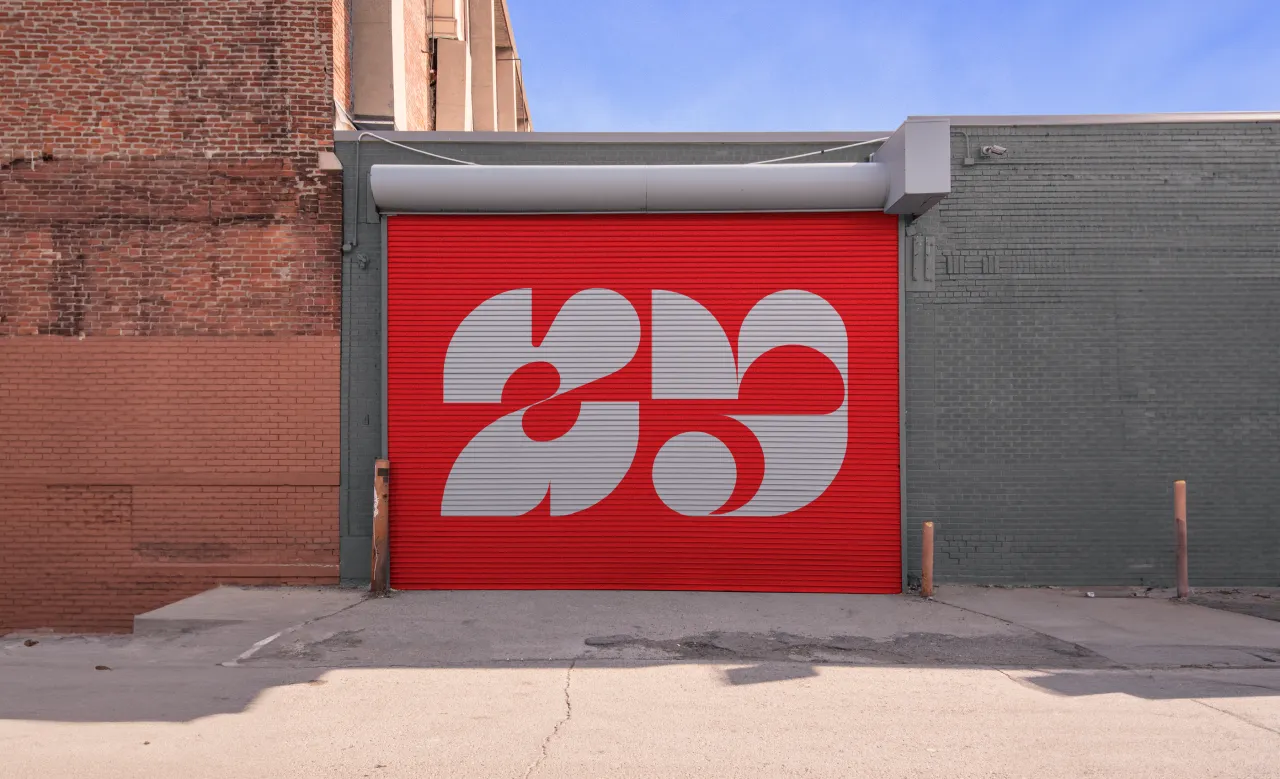
Modwood Display by Adam G
Ever feel like the design world is becoming more generic? That gut feeling is hard to quantify in any meaningful sense, but we're hearing it from many creatives right now. And it's certainly the case that the AI-fuelled direction we're heading in is pulling many things in the same visual direction.
Yet, every problem is also an opportunity. And if other people's designs are starting to look similar, why not double down on making yours stand out? One of the best tools for that is typography, so we're always looking out for exciting new fonts to share with you.
Thankfully, the art of typography continues to evolve, with designers and foundries consistently pushing the boundaries of letterform creation. And the proof of the pudding can be found among the best of this month's new typeface releases, which showcase the incredible creativity and craftsmanship within this small but highly passionate community.
From quirky, licence plate-inspired constructions to organic calligraphic scripts that capture the essence of Brazilian culture, these fonts offer a diverse array of expressive possibilities. Whether you're seeking to inject personality into headlines or hunting for highly legible workhorses for body copy, this collection represents the cutting edge of current type design trends.
In other words, the industry's best font designers have once again demonstrated their ability to transform the fundamental building blocks of communication into objects of purposeful beauty. So why not take advantage?
1. Piet by Typemates
The idea of a font inspired by Finnish licence plates is just the kind of thing that gets us excited at Creative Boom. And as ever, German foundry Typemates – aka Jakob, Lisa and Nils – didn't disappoint us.
Piet is a quirky pair of constructed sans and mono typefaces (MONO and Sans) defined by strange numbers and deep ink traps. Its shapes are practical and almost unbreakable.
With chunky forms and more and less than the expected optical corrections, it is functional, visually unbalanced and narrow. With both utilitarian and eccentric aesthetics, Piet turns typographic "limitations" into stylistic strengths.
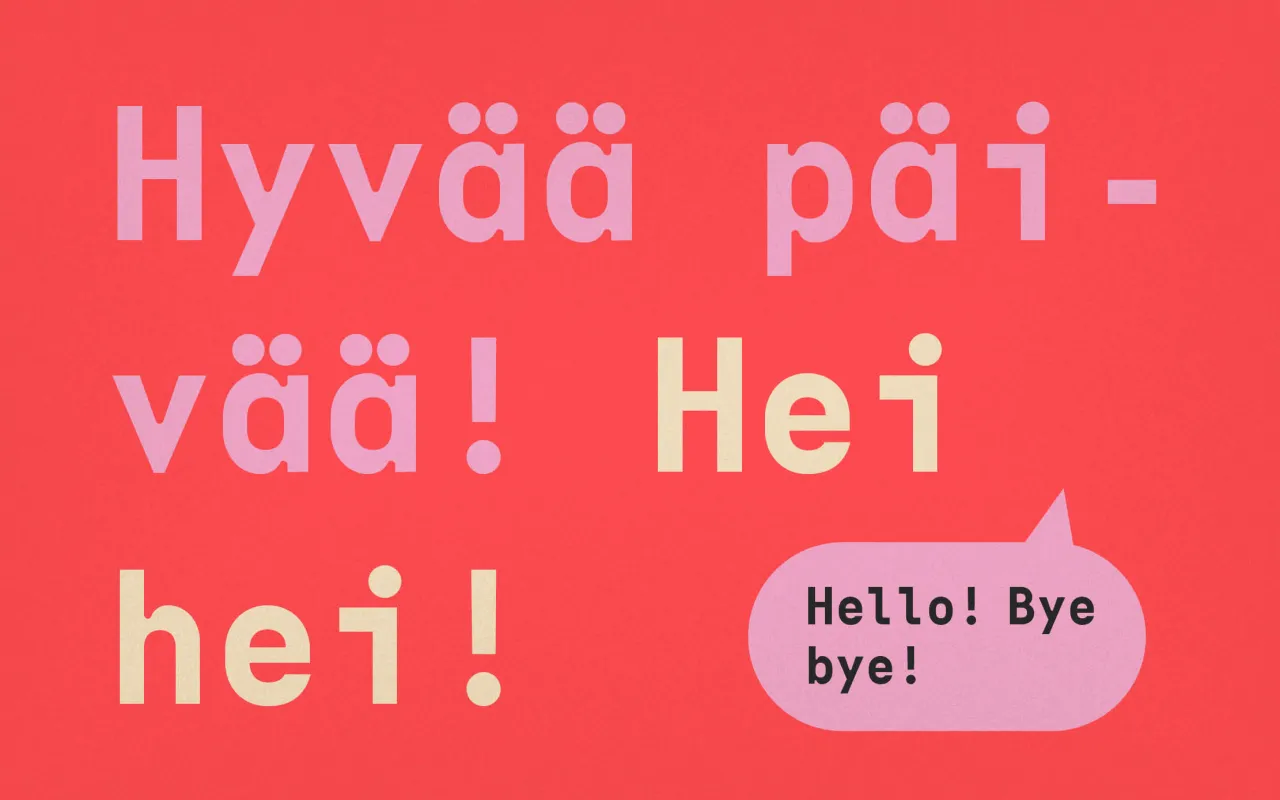
Piet by Typemates
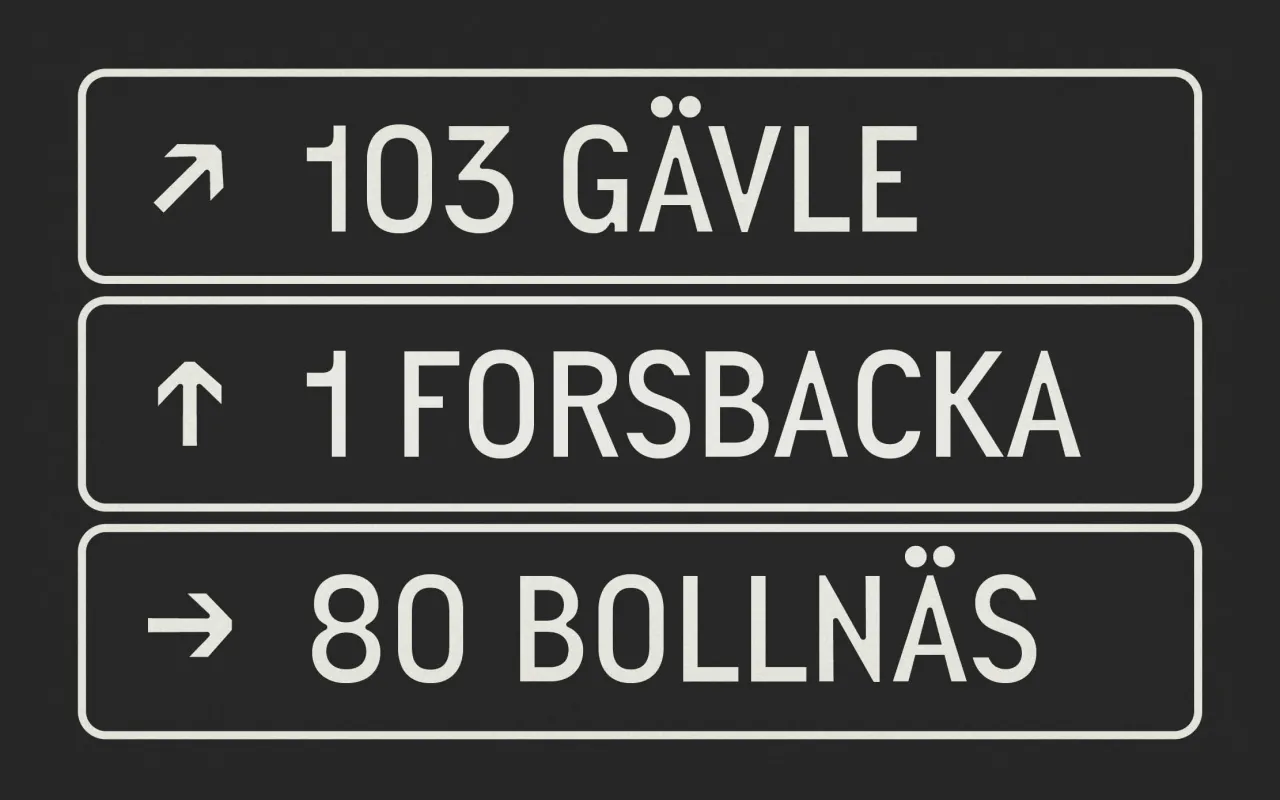
Piet by Typemates
2. Pitanga by Fabio Haag
Pitanga is a new organic, calligraphic typeface designed by Sofia Mohr in collaboration with Brazilian foundry Fabio Haag.
Inspired by the diversity of their nation's culture, it features light, organic and loose strokes that add up to an expressive, free-flowing personality. And that makes it perfect for a wide range of usages.
The studio is suitably poetic about the inspiration behind the font. "Imagine a Brazil that can only be visited between the lines, with an identity that manifests in unpredictable ways," they say. "In the footballer's twisted leg, in the sudden improvisation, in the softness of Bossa, and in the infinity of colours, shapes, and expressions that make up this reliquary of peoples and cultures. [This] font absorbs the many Brazils that exist to roam freely."
3. Push by Fontwerk
A new release from famed Berlin-based foundry Fontwerk, Push is a comprehensive, 56-style type system nodding to early Grotesque and Gothic designs. With weights spanning from hairline to ultra-black and widths from compressed to extended, it all makes for a highly versatile typographic toolkit.
Created by Swiss designer Christine Gertsch, Push echoes the letterforms of the first 100 years of sans-serifs yet carries its own weight in a very contemporary manner.
Its bold, condensed, crossbar-less capital 'G' takes inspiration from Thorowgood's 1830 Seven-Line Grotesque, while the lowercase 'a' follows in the same vein as Plak from 1930. Standout characteristics include a looped Anglo-American 'g', a Grotesk two-storey 'g' and an open-sloped 'Danish g', all adding to this magical mix of the Old and New World.
Push by Fontwerk
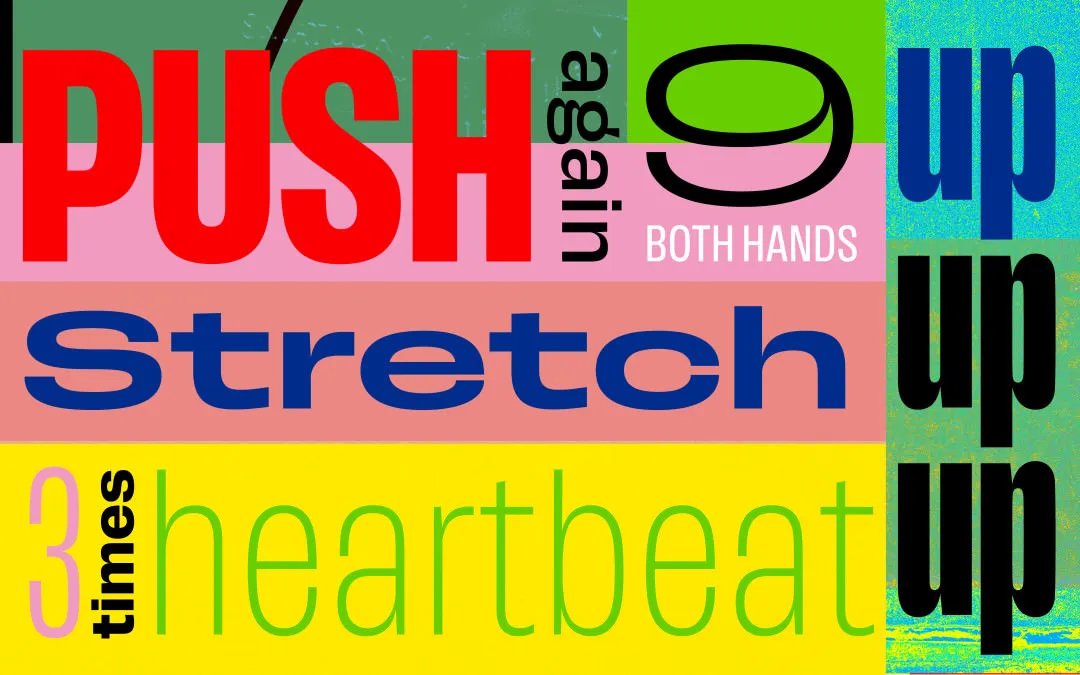
Push by Fontwerk
4. Modwood Display by Adam G
Modwood Display is an eclectic, personality-rich display font mixing modern, geometric, organic and whimsical aesthetics. With multiple stylistic sets and glyphs, it allows for myriad typographic voices.
The font was designed by Adam G, co-founder and creative director at TRÜF, a Los Angeles design studio specialising in visual identity and illustration.
"Modwood Display is designed to be a mix between modern, wood, geometric, organic and just plain old fun," he says. "It can be playful, serious, rebellious, tribal, artsy-fartsy or just weird, depending on how you work it. There are several glyphs, alternatives and an Easter Egg or two."
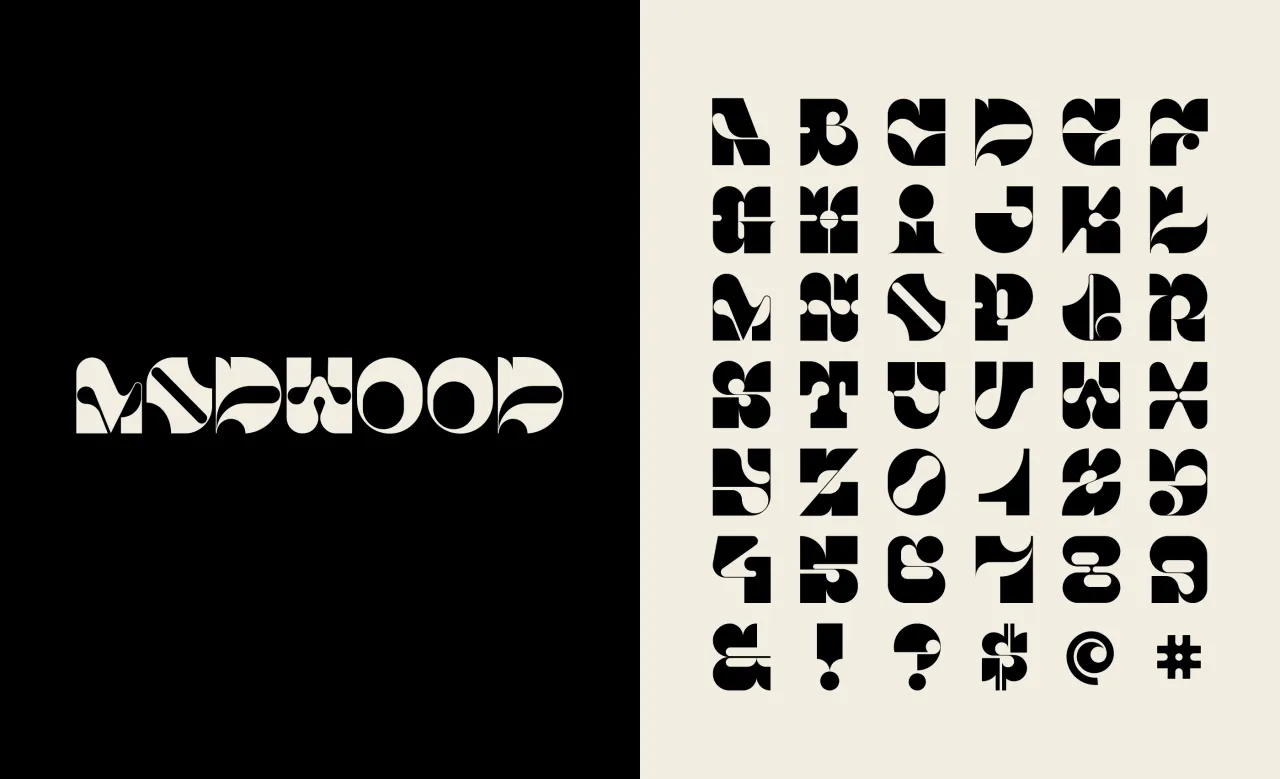
Modwood Display by Adam G
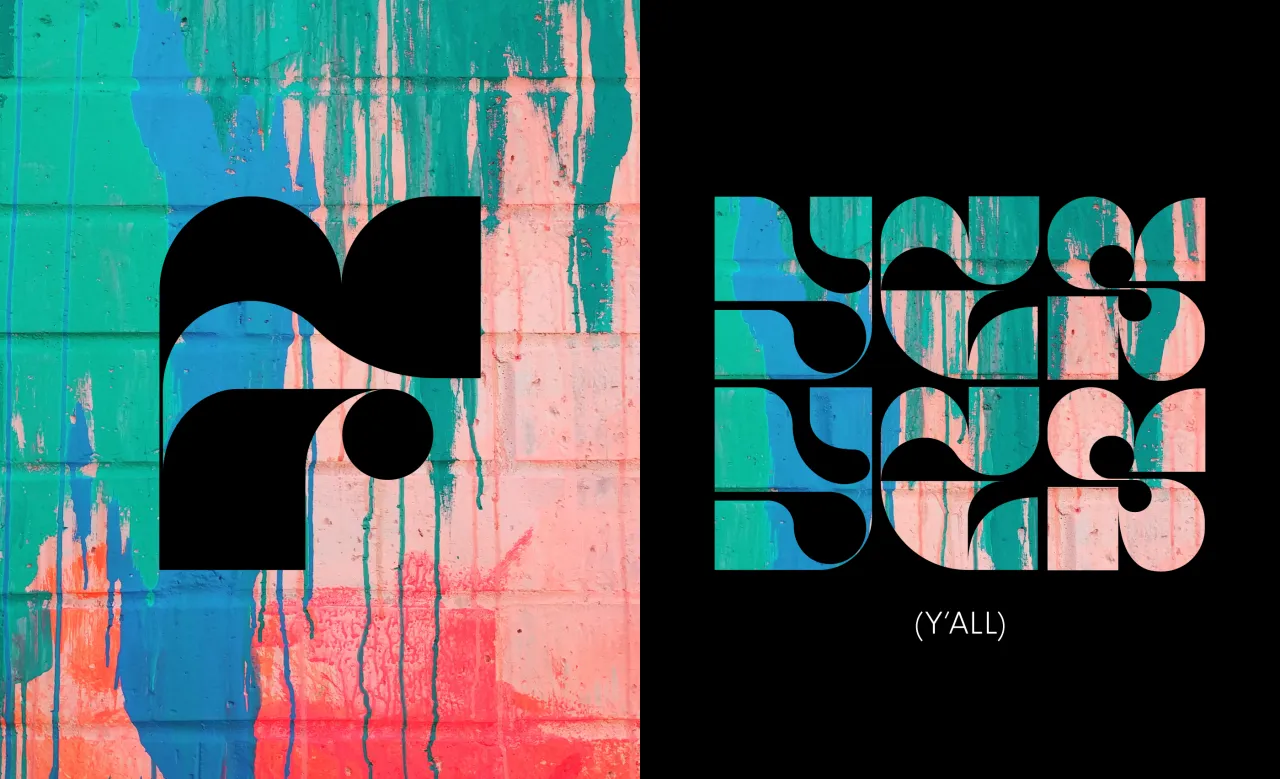
Modwood Display by Adam G
5. Renotype by Radim Peško
A straightforward archetype of letterforms, Renotype explores concepts like monolinearity in styles like its Mono and Medieval subfamilies, showcasing the Latin alphabet's structural and stylistic flexibility.
Created by Polish type designer Joanna Angulska for The Northern Block, an independent type foundry based in Northumberland, Zabawa is a great typeface for injecting a splash of fun into your projects.
With 936 characters to play with, its dynamic and energetic vibe promises to leave a lasting impression. OpenType features, meanwhile, include alternate characters for both lowercase and uppercase, 42 ligatures, lining and old-style figures, and fractions. The font also contains 12 decorative ornaments.
Zabawa by The Northern Block